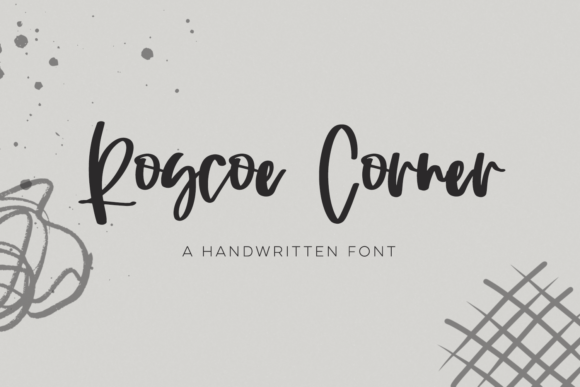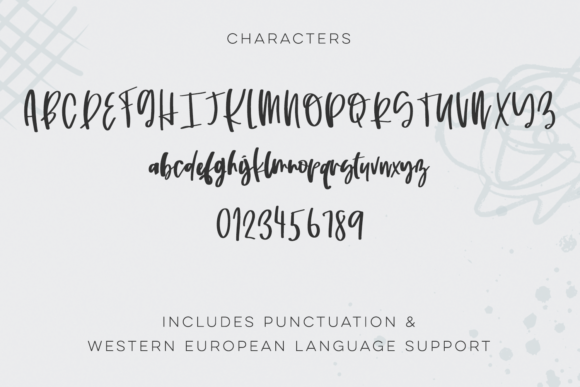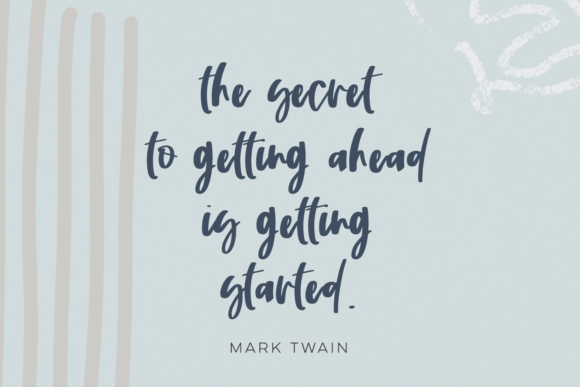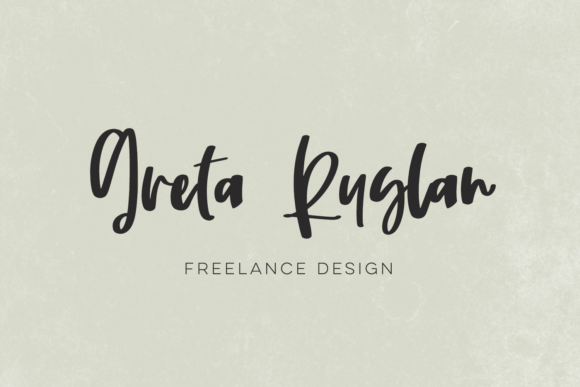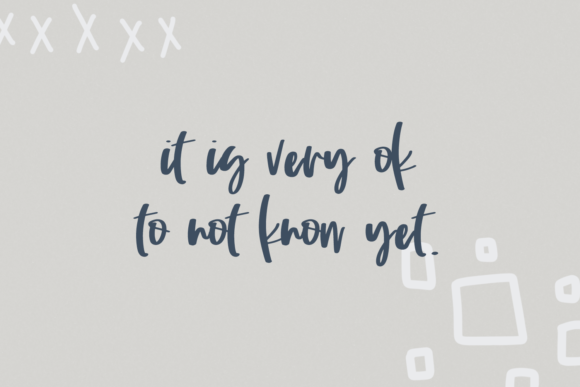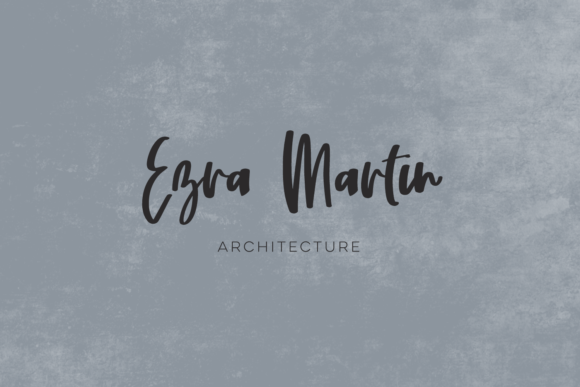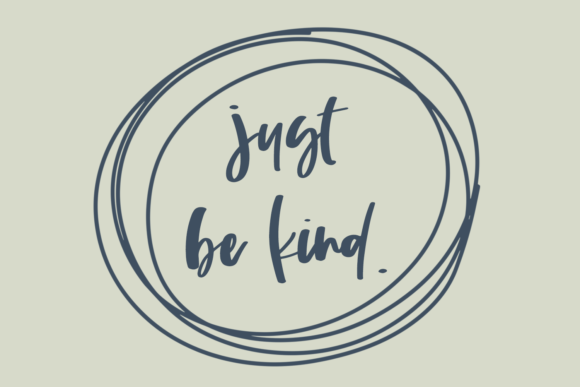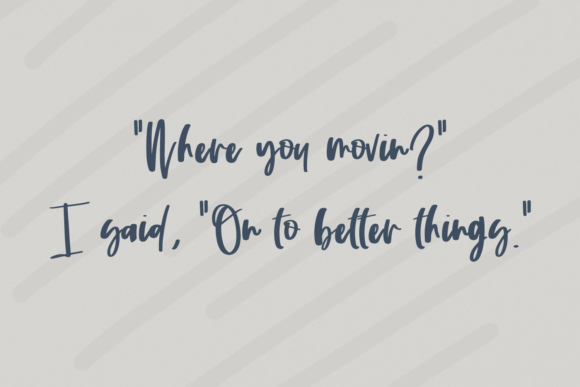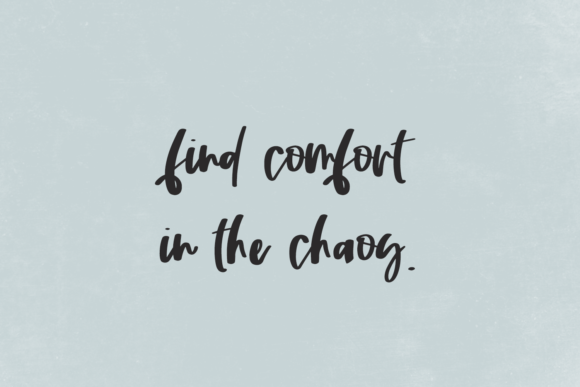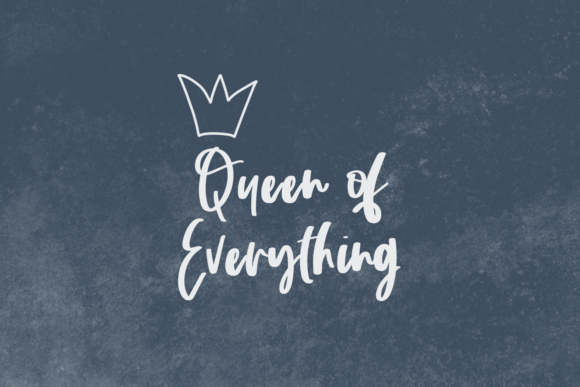
Roscoe Corner Script Font
About Roscoe Corner Script Font
Roscoe Corner is a beautiful handwritten font. Roscoe Corner’s thickness resembles writing with a marker and has a casual, messy signature look.
Roscoe Corner Script is best for:
– logos + branding
– website design + website accents – think design blogs, travel blogs, fashion blogs, & more
– clean print design, like magazines + flyers
– header elements that need a handwritten touch
– quote graphics for social media